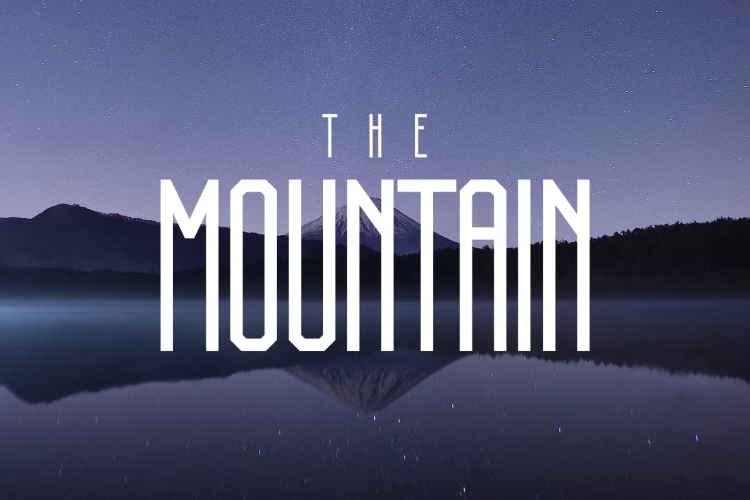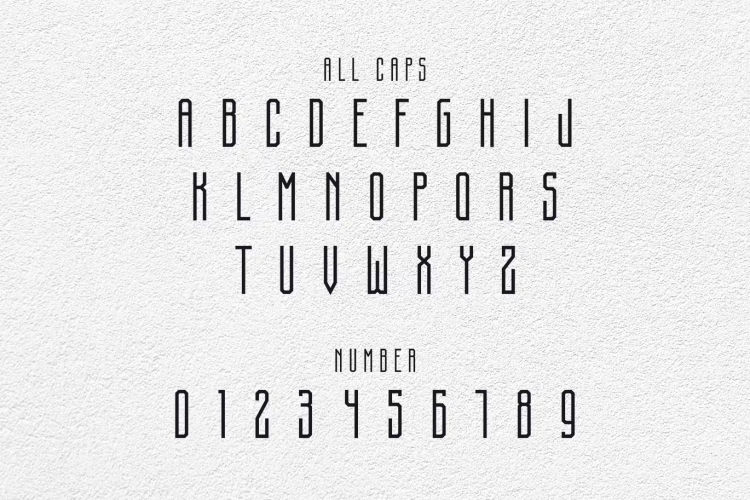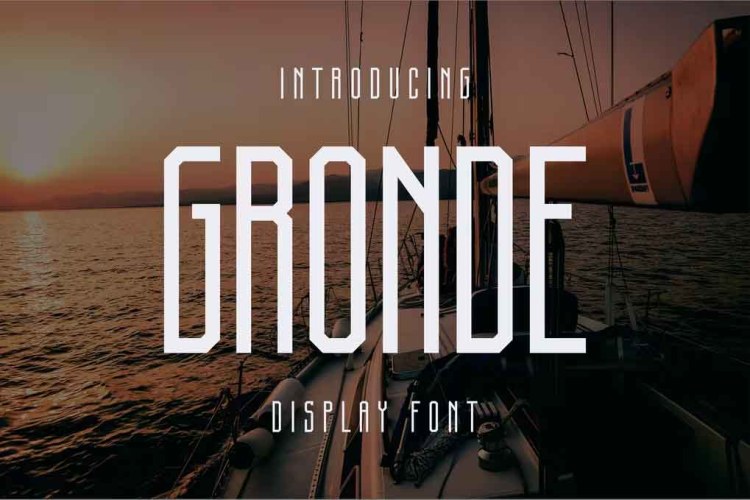
Gronde Font
Gronde Font Perfectly suited on print/screen. it’s perfect for Branding, name card, poster, logo, magazine, cover, banner, tshirt and headers, or even large-scale artwor…
Gronde Font Perfectly suited on print/screen. it’s perfect for Branding, name card, poster, logo, magazine, cover, banner, tshirt and headers, or even large-scale artwork.
Where Gronde Font works best
Gronde Font keeps its shape at 14 and 16 pixels, which is where interface text actually lives. Numbers and capitals stay distinguishable in tables.
Presentations are read at a distance; a clean sans with a strong bold is the safest hierarchy you can build in a hurry.
Simple letterforms survive angles, glare and movement, so Gronde Font suits door signs, menus boards and exhibition panels.
What kind of work does Gronde Font suit?
It sits in the Sans Serif Fonts group and reads as branding, professional, sans serif, sans serif fonts. That makes it a candidate wherever those qualities help: headings, packaging, social graphics and brand work. Set it at the size you plan to use before deciding.